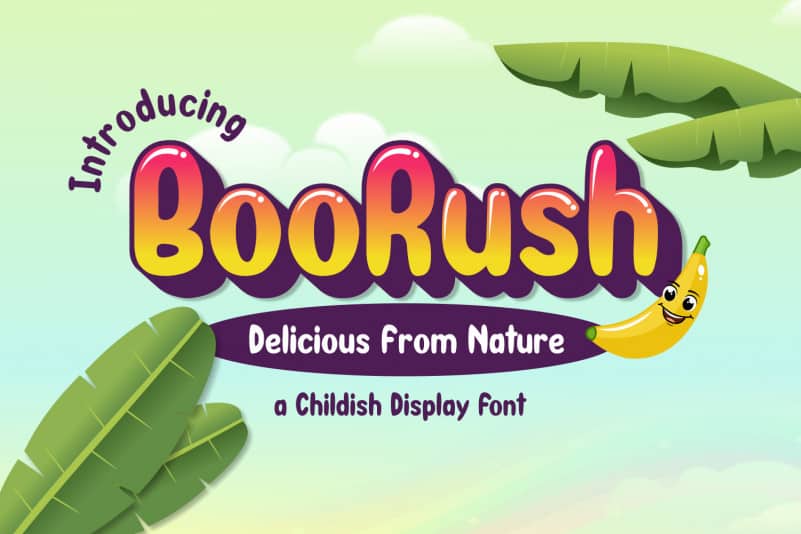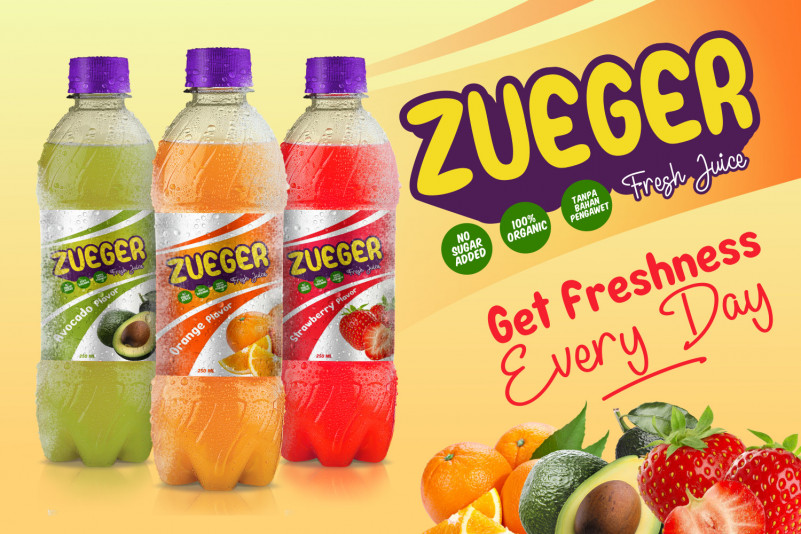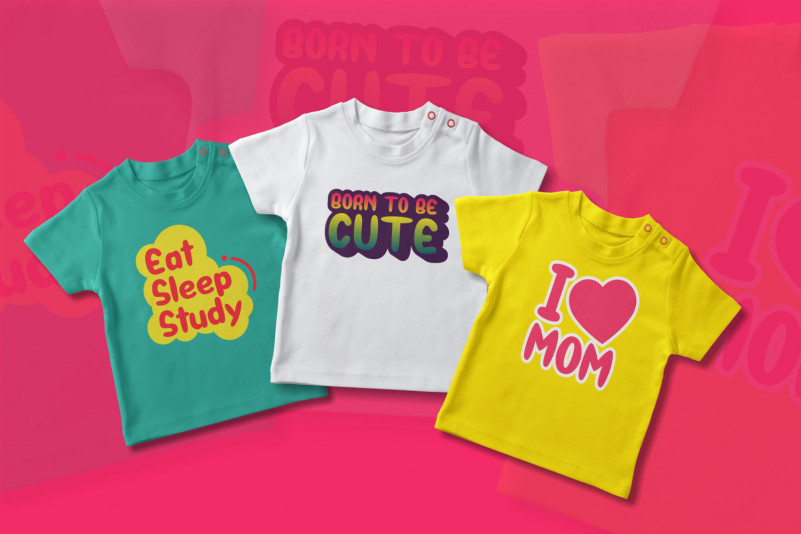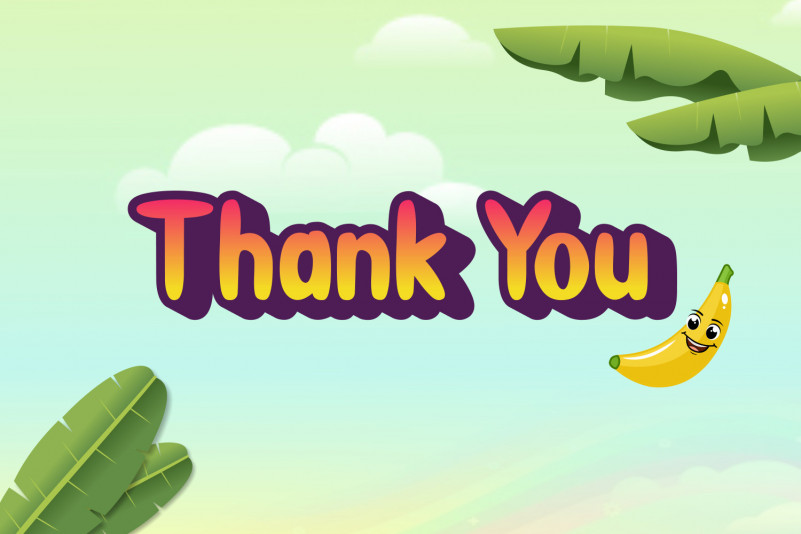
BooRush Display Font
BooRush Display Font is a display font with a childish touch. The bold shape makes this font very suitable for any playful headings!